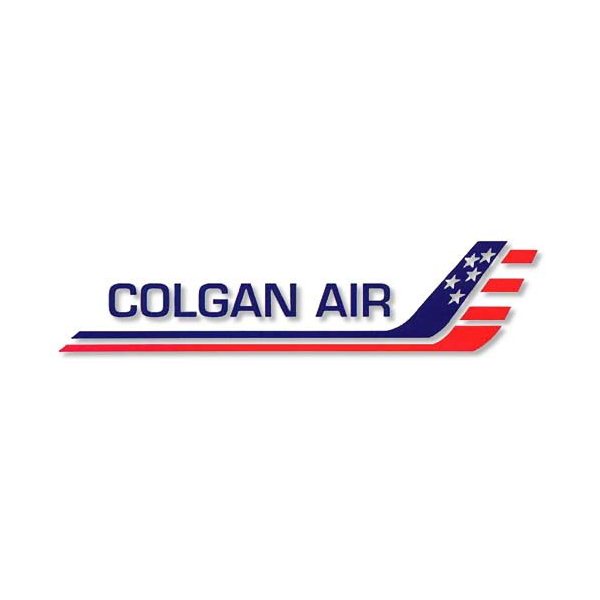
Colgan Air Font
AirlineColgan Airlines was a regional airline based in Manassas, Virginia, United States. It operated under the brand name Continental Connection for Continental Airlines. The company was founded in 1993 and operated until 2010 when it filed for bankruptcy and ceased operations. Colgan Air logo features a stylized airplane with the airline's name sitting on it.